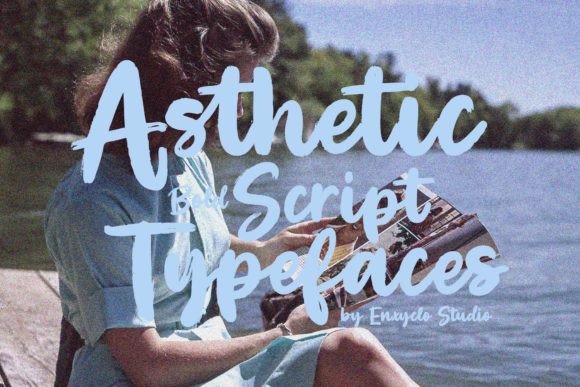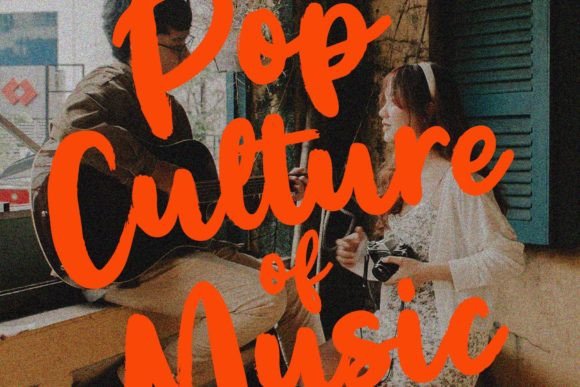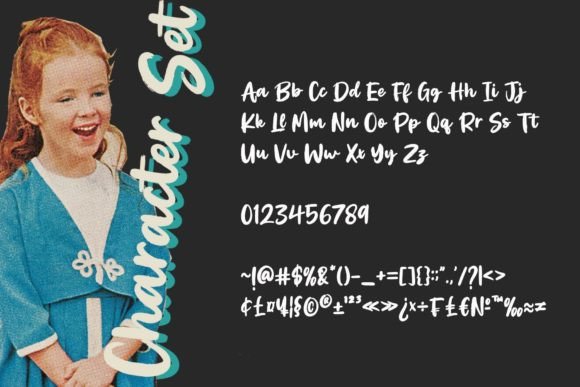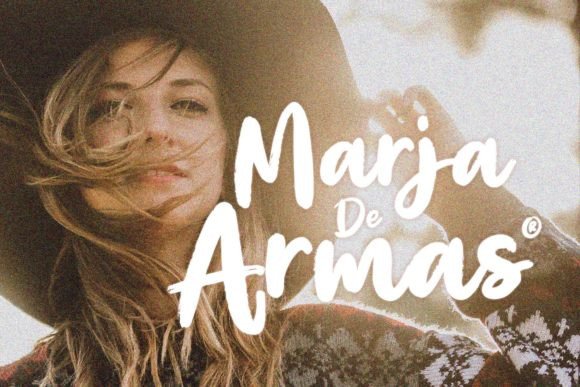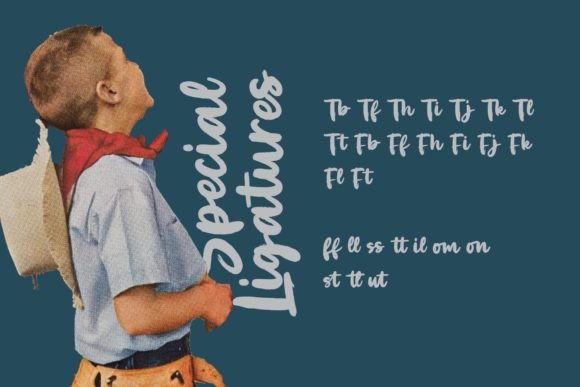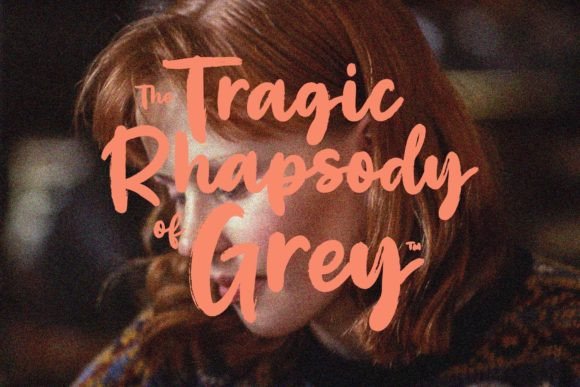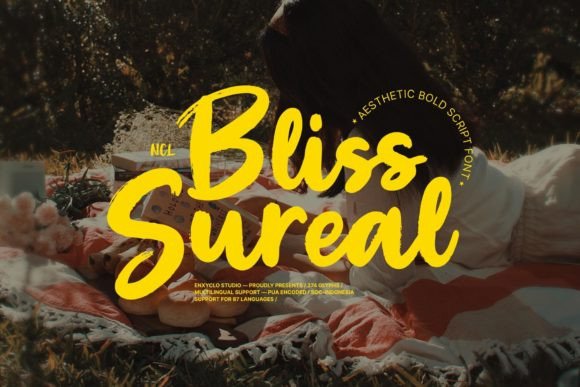
The Bliss Sureal Font: A Game-Changer for Creative Projects
I’ll never forget the time I was working on a project for a client who wanted a bold, eye-catching font to make their brand stand out. I scoured the internet for hours, trying to find the perfect font, but nothing seemed quite right. That was until I stumbled upon the Bliss Sureal font. This stunning bold brush script font has since become a staple in my design library, and I’m excited to share its awesomeness with you! 😊
- ✅ Unique and stylish: Bliss Sureal has a modern-classic vibe that’s hard to find in other fonts.
- ✅ Versatile: This font is perfect for headlines, billboards, magazines, websites, titles, posters, branding, t-shirt design, and logos.
- ✅ Easy to read: Even in small point sizes, Bliss Sureal remains clear and legible.
- ✅ High-quality design: The font is masterfully crafted, making it a true favorite among designers.
- ⚠️ Not suitable for body text: Bliss Sureal is best used for headlines and titles, as it may be too bold for large blocks of text.
- ⚠️ May require adjustments for kerning: As with any font, you may need to tweak the kerning to get the perfect spacing.
Bliss Sureal was designed with the intention of creating a font that’s both modern and timeless. The designer wanted to create a font that’s perfect for creative projects, from branding and advertising to packaging and editorial design.
The font’s inspiration comes from the world of art and design, where bold and expressive typography is key. The designer aimed to create a font that’s both stylish and legible, making it perfect for a wide range of applications.
| Font Name | Bliss Sureal Font |
| Author | Enxyclo |
| What is Bliss Sureal font best used for? | Bliss Sureal is best used for headlines, titles, and bold statements. It’s perfect for creative projects, branding, and advertising. |
| Is Bliss Sureal suitable for body text? | No, Bliss Sureal is not suitable for body text. It’s best used for headlines and titles, as it may be too bold for large blocks of text. |
| Is Bliss Sureal easy to read? | Yes, Bliss Sureal is easy to read, even in small point sizes. It’s a clear and legible font that’s perfect for a wide range of applications. |